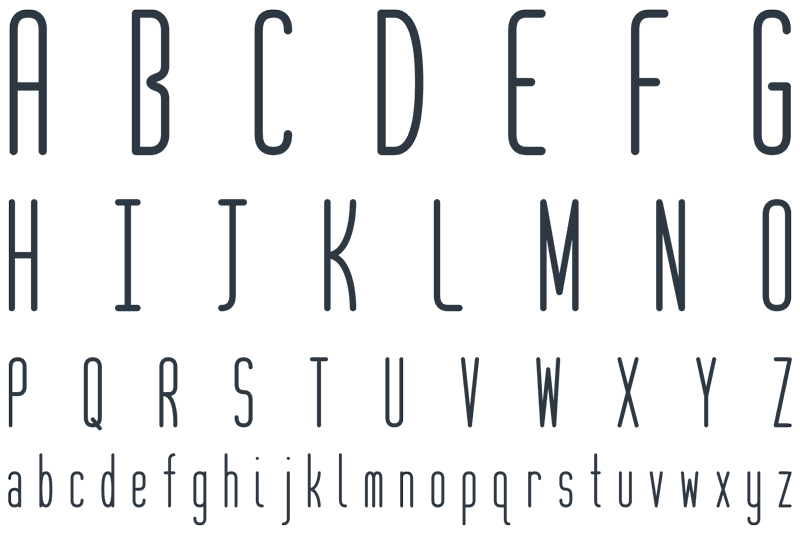
Well-Rounded Font
The Well-Rounded font is my most extensive adventure into font creations to date. This thin and narrow font includes a full MacOS Roman character set.